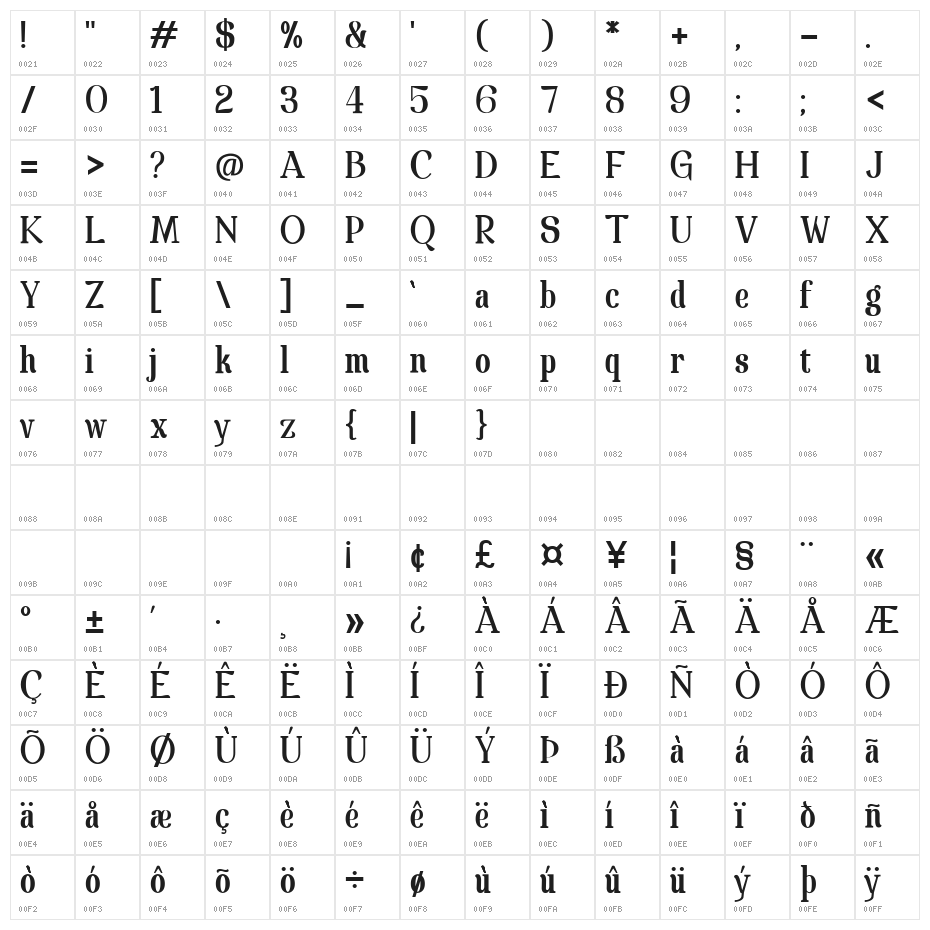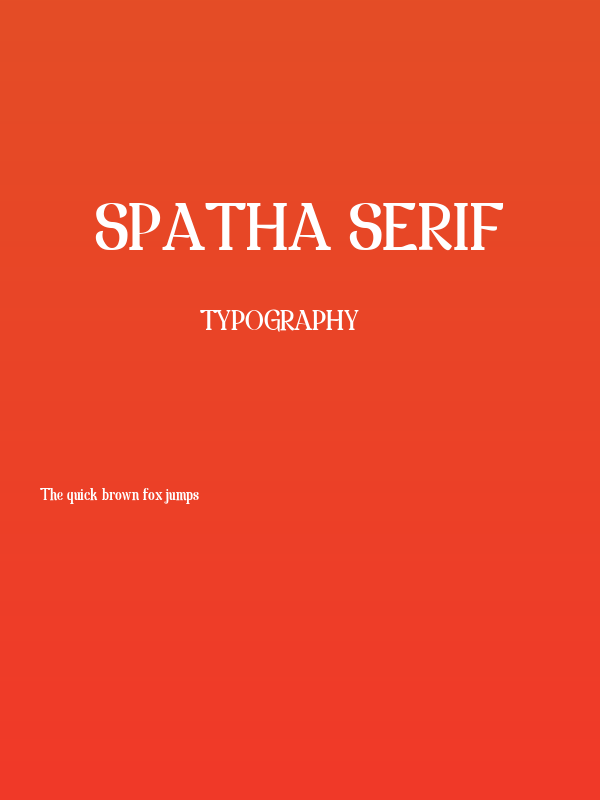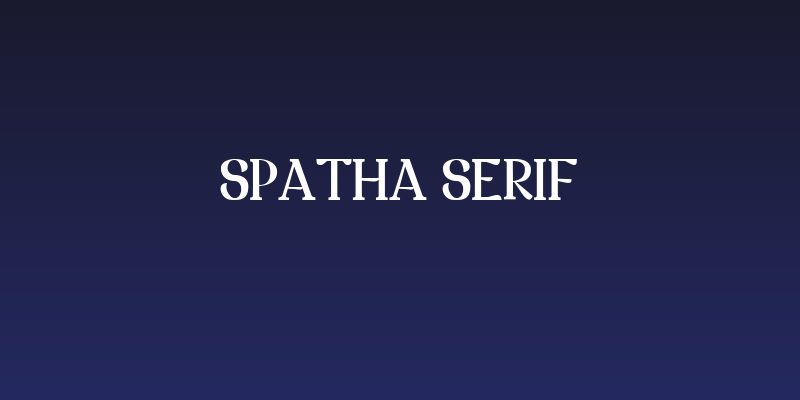
Spatha Serif Font
Spatha Serif Description
This font features a bold and commanding presence with its strong serif design. The uppercase letters are tall and elegant, with a slight curvature that adds a touch of sophistication. The lowercase letters maintain a consistent weight, providing a harmonious balance between the characters. The numerals are clear and distinct, making them easily readable. Special characters are designed with the same attention to detail, ensuring they complement the overall style. This font is ideal for projects that require a classic yet modern aesthetic, combining traditional serif elements with a contemporary twist.
| Use Case | Headlines, Logos, Editorial design |
| Proposed Projects | Ideal for book covers, editorial design, branding, and formal invitations. |